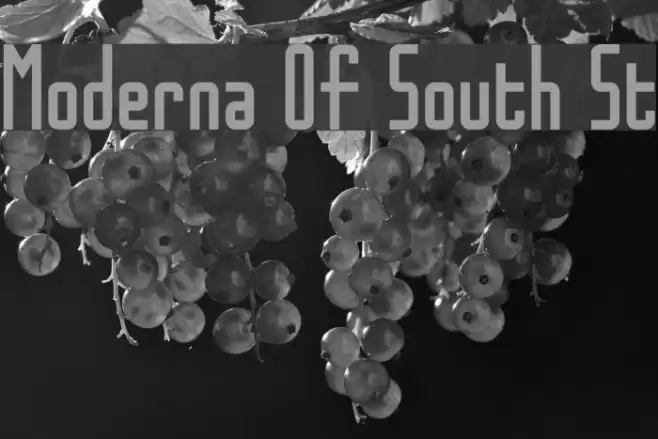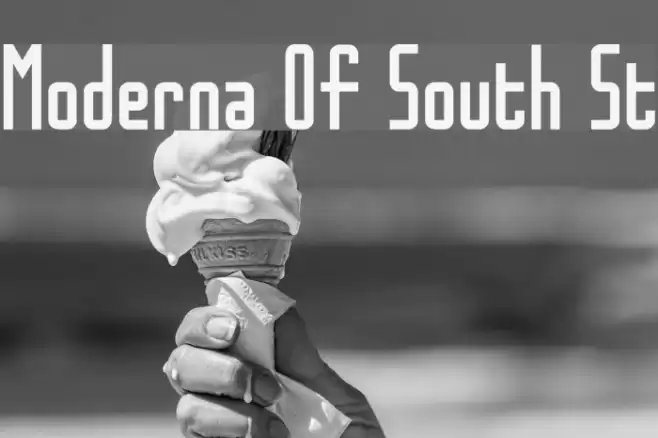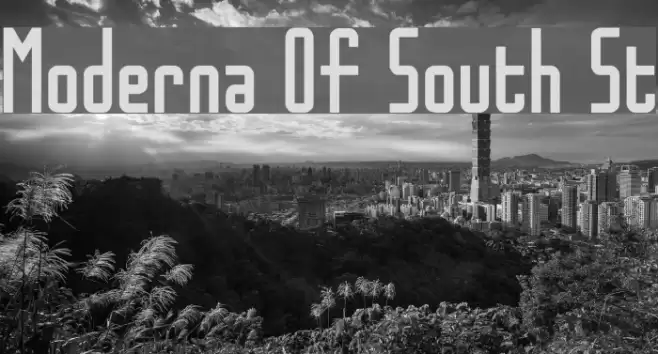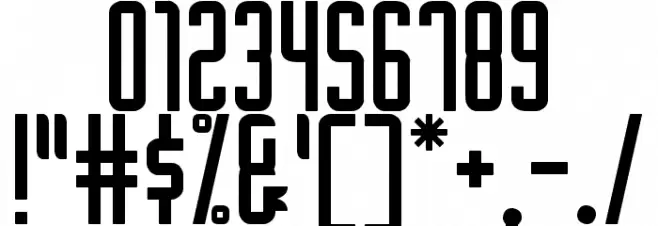
Moderna Of South St Font
Moderna Of South St Description
This font features a bold and modern design with a geometric structure. The uppercase letters are tall and narrow, giving a condensed appearance, while the lowercase letters maintain a consistent height, providing a uniform look. The numbers are distinct and easily readable, with a similar geometric style. Special characters are well-defined, adding to the font's versatility. The overall design is clean and minimalistic, making it suitable for contemporary projects.
A bold, geometric font with a modern and minimalistic style from Uncategorized fonts.
- Proposed Projects: Ideal for branding, posters, headlines, and digital media that require a modern and striking appearance.